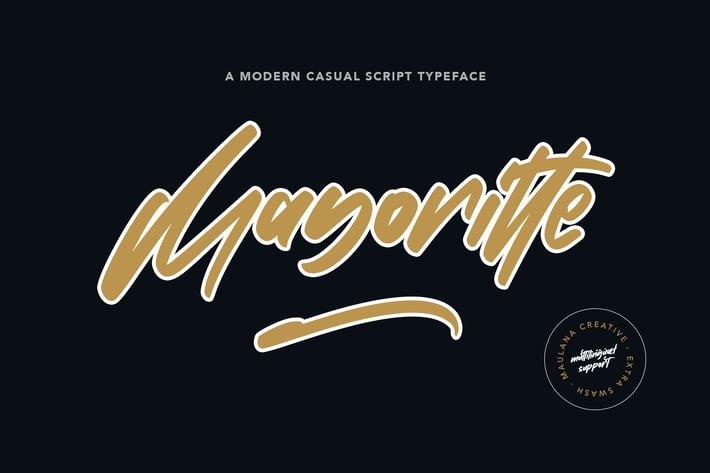
Mayoritte Modern Casual Script Typeface
Give your designs an authentic handcrafted feel. "Mayoritte" is perfectly suited to signature, stationery, logo, typography quotes, magazine or book cover, website header, clothing, branding, packaging design and more.